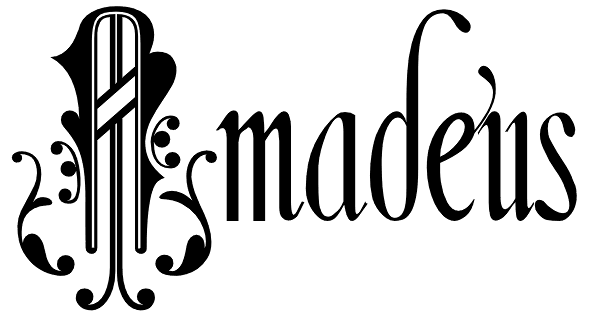
Amadeus
Amadeus was inspired by an alphabet reputed to be used in the Papal Chancery in the 16th century. It has highly decorated capitals and to be used at its best requires a large point size. The lower-case characters have been deliberately made simple...